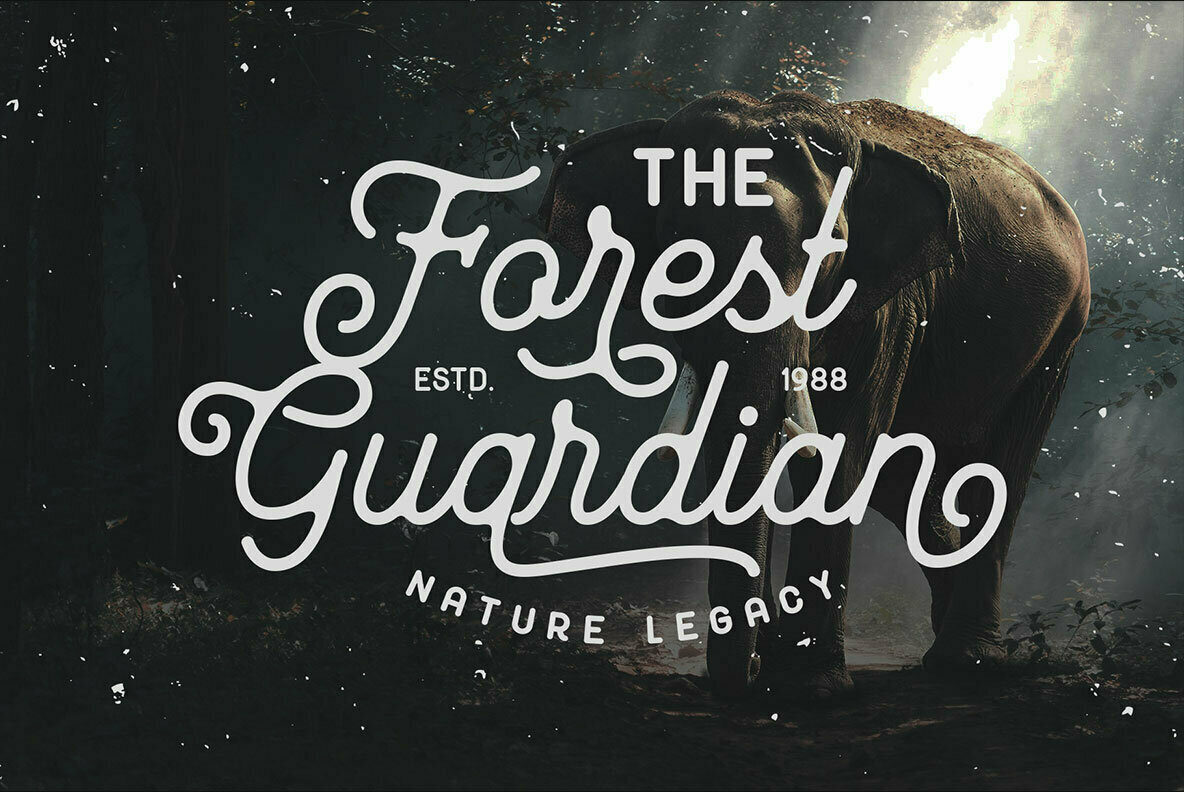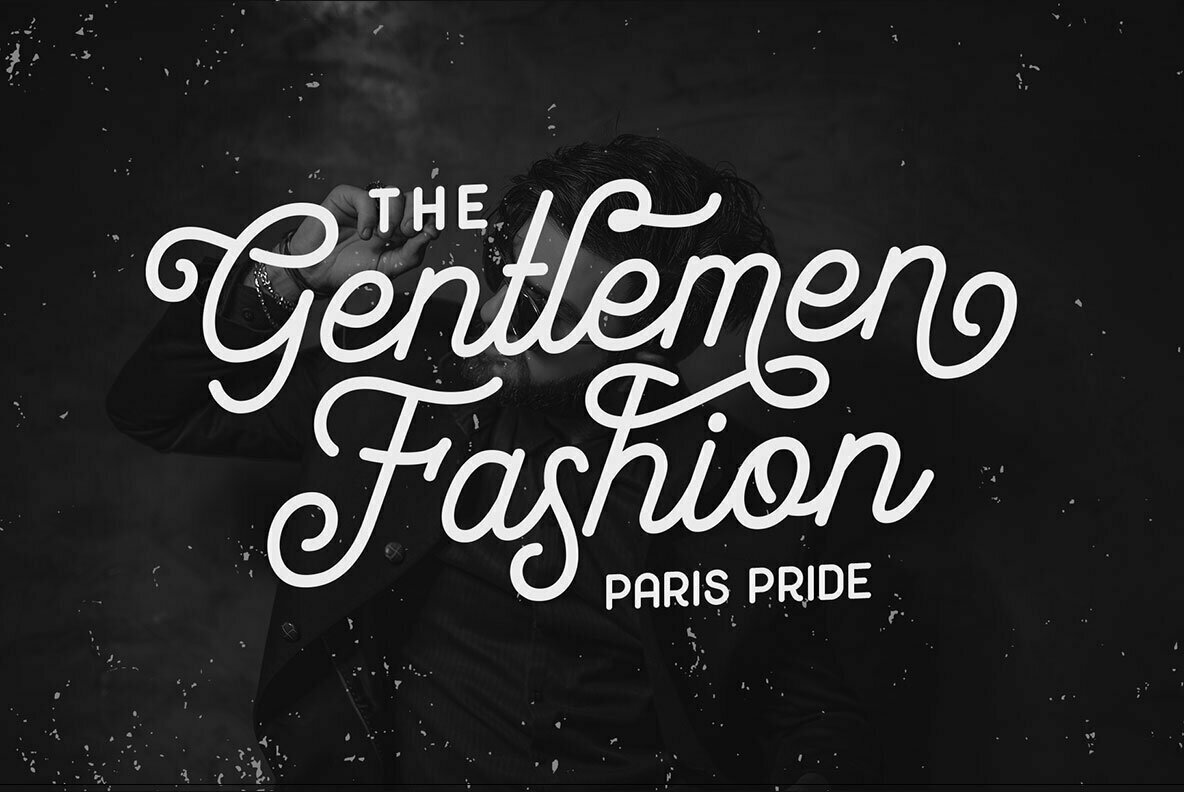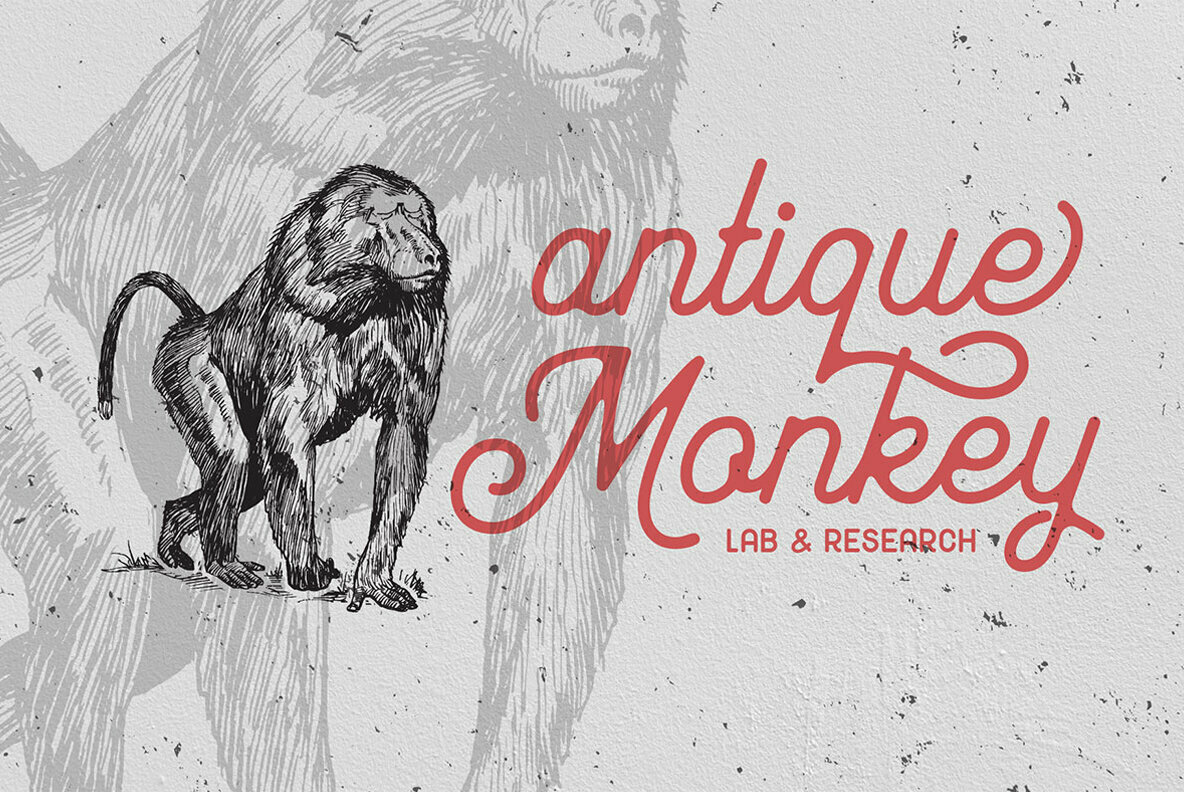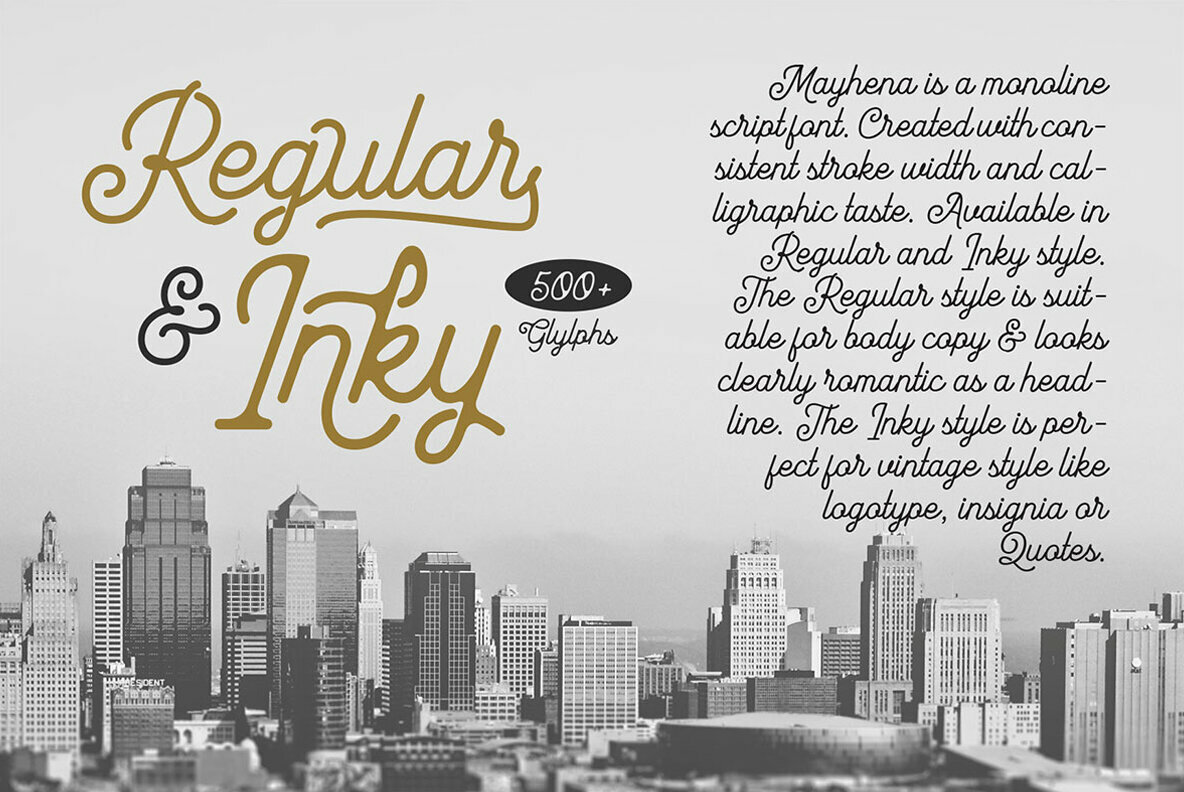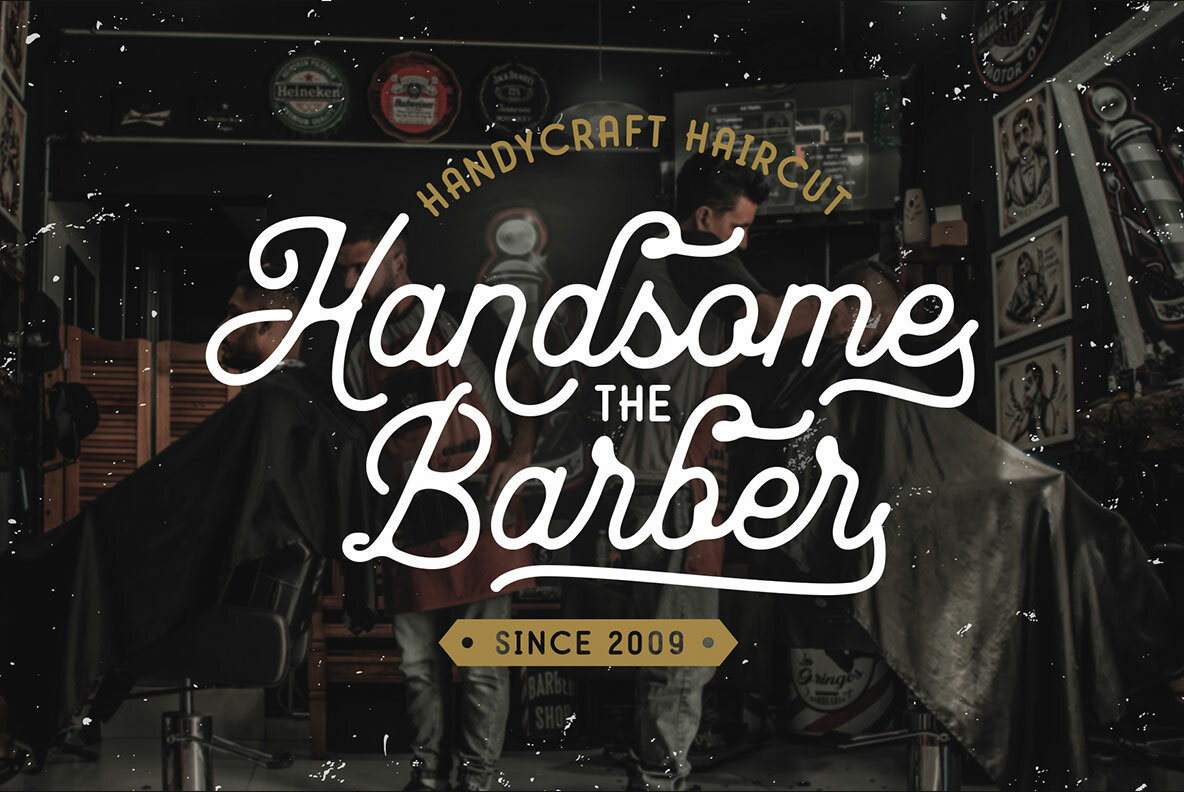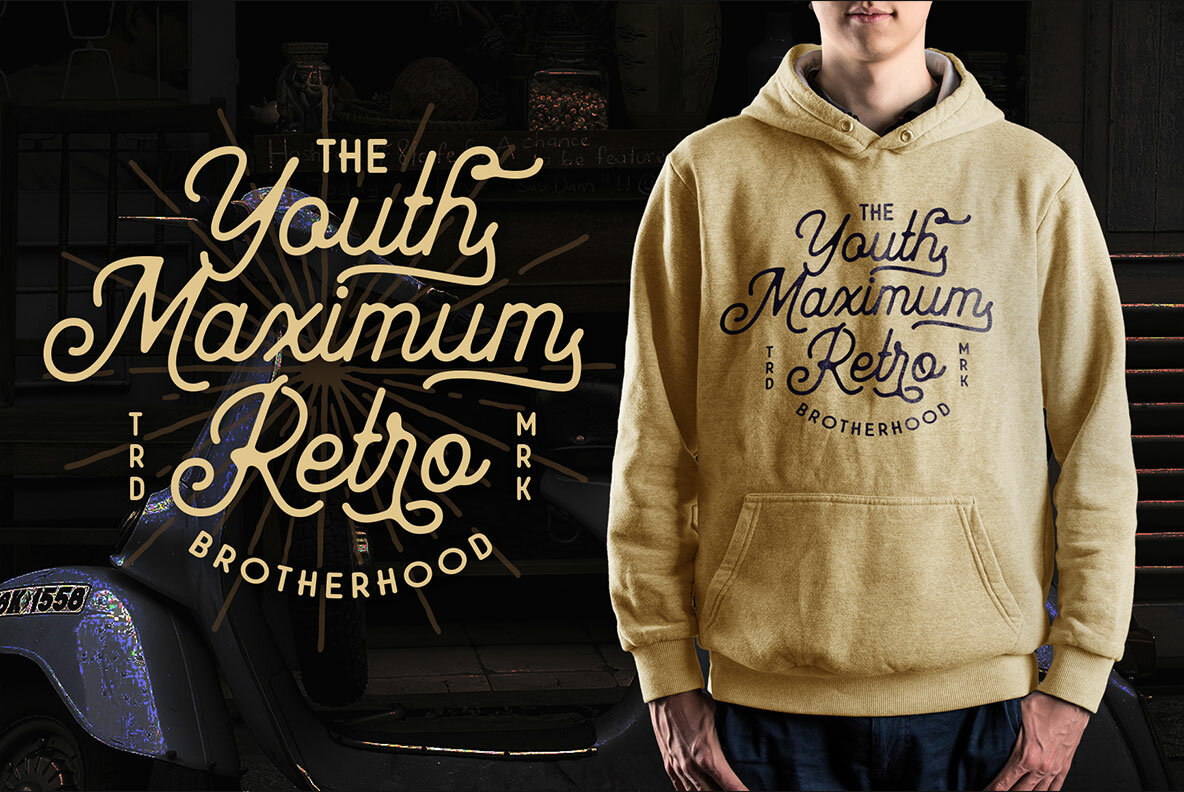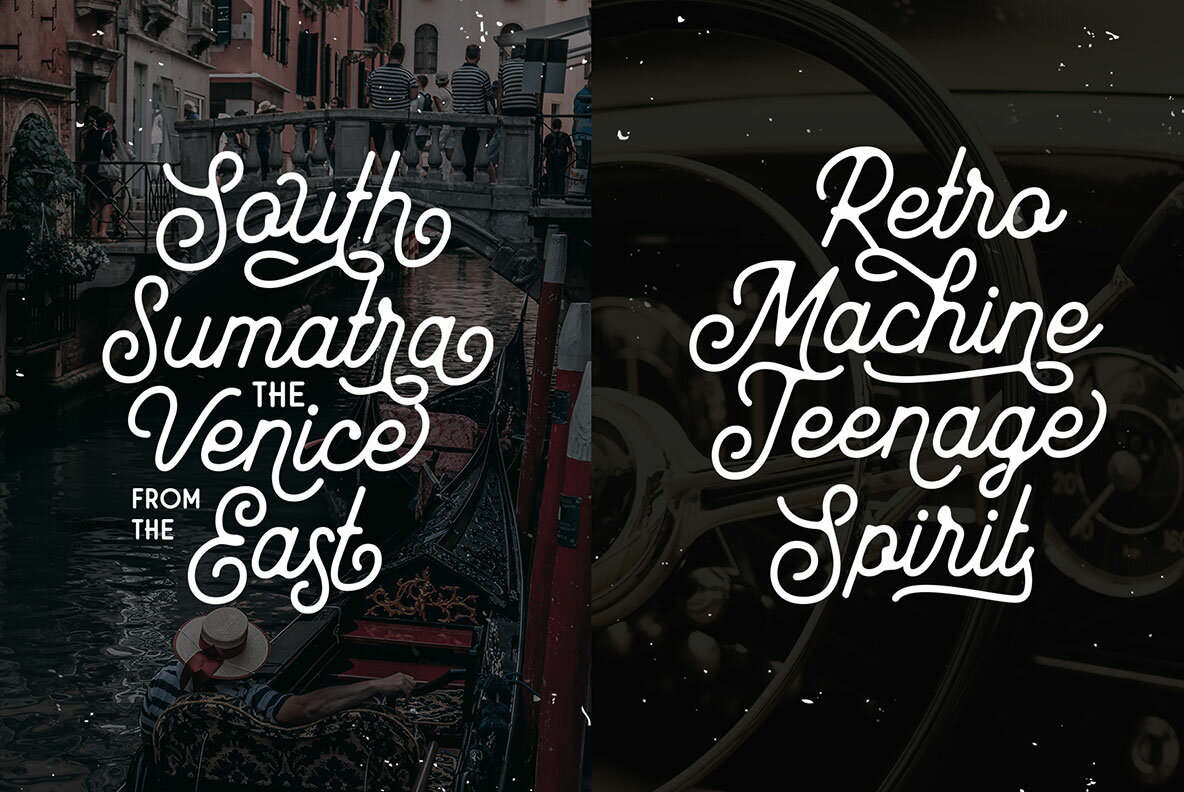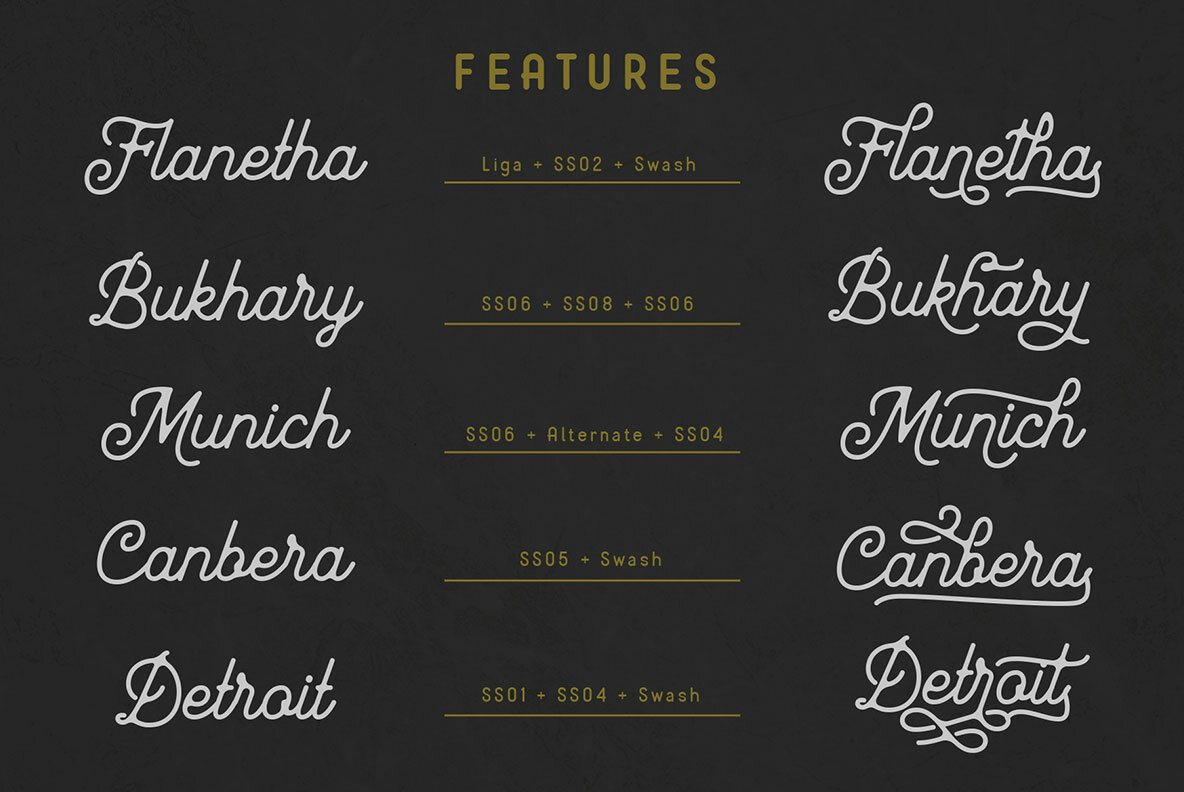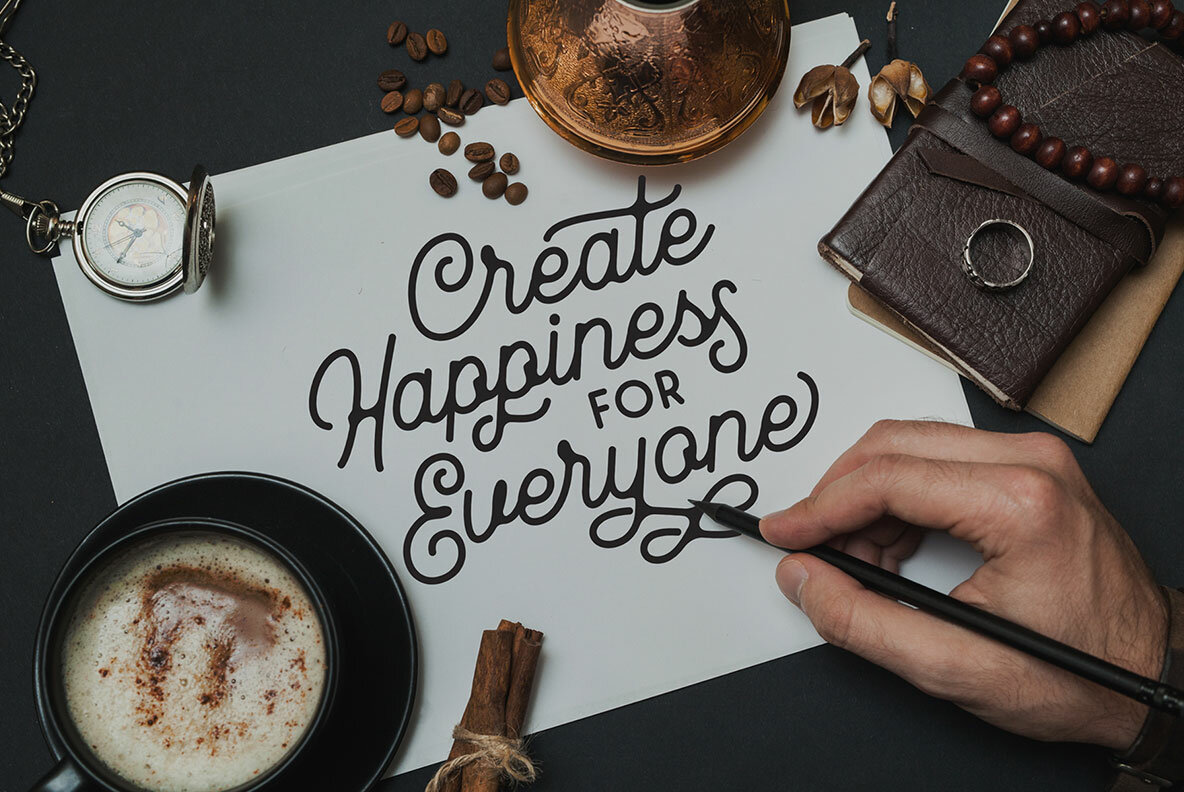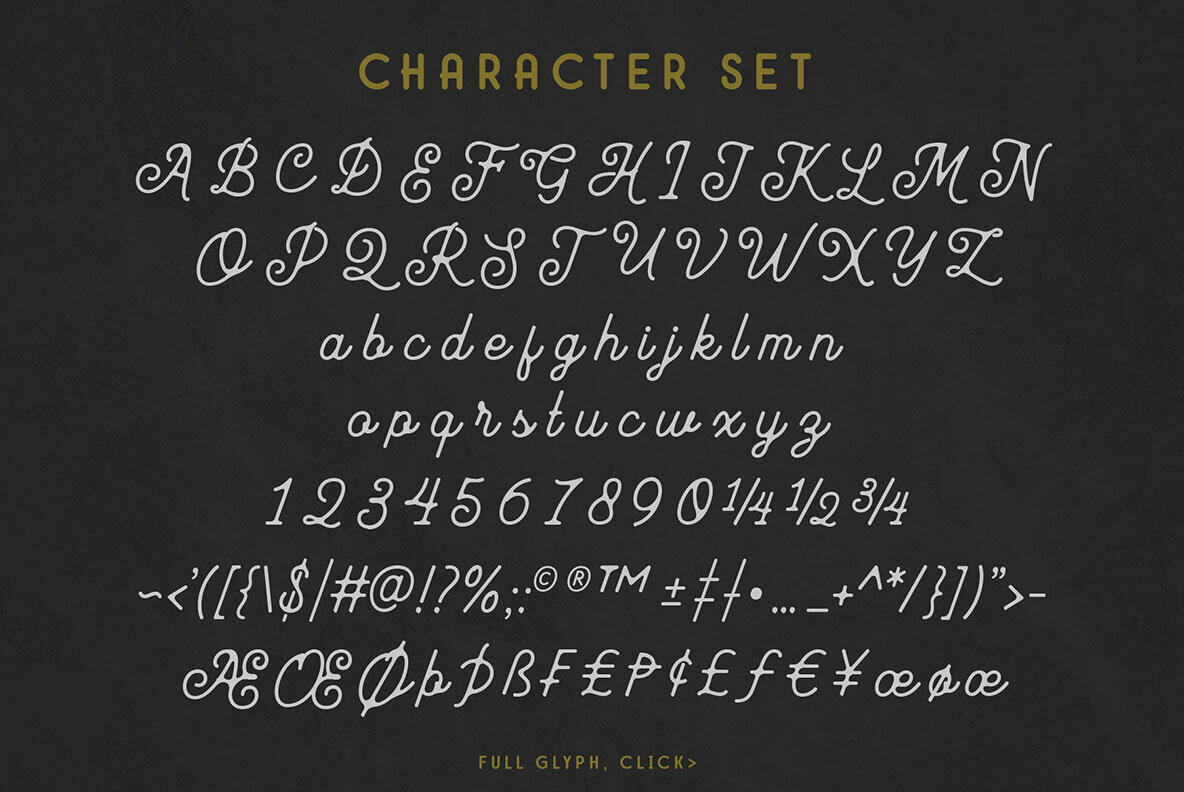
Mayhena Font
Immerse yourself in the timeless elegance of Mayhena, a connected monoline font that seamlessly marries vintage aesthetics with modern functionality. Available in Regular and Inky styles, Mayhena offers designers a versatile tool for crafting beautiful typography across diverse projects—from t-shirts and merchandise to logos, labels, and posters. Its clarity enhances readability even in body text, making it an ideal choice for various design needs. Mayhena further enriches your creative process with a wealth of customization options. The font includes a complete set of alternates and stylistic sets ranging from 01 to 08. This enables you to experiment with different typographic variations, including long and short swashes, ornamental tails, and elaborate end strokes.Mayhena: A Vintage Monoline Masterpiece
Embrace the artistry of Mayhena and elevate your typographic endeavors with its distinctive charm and extensive features.